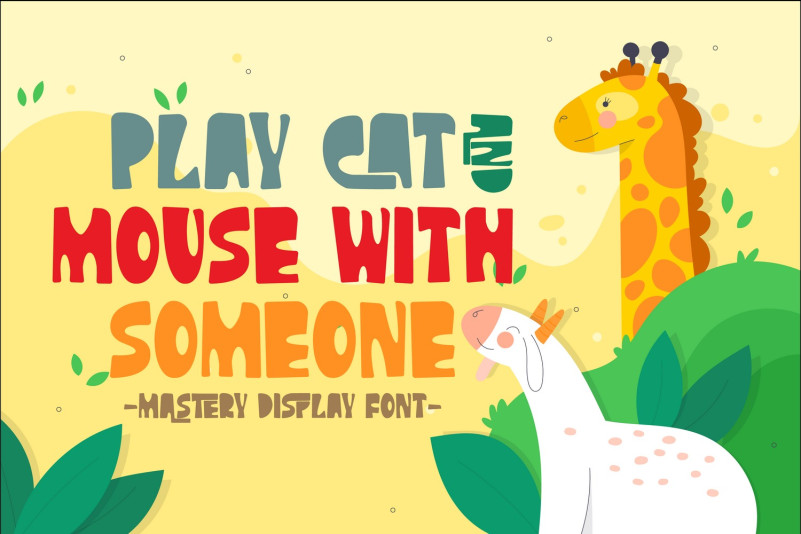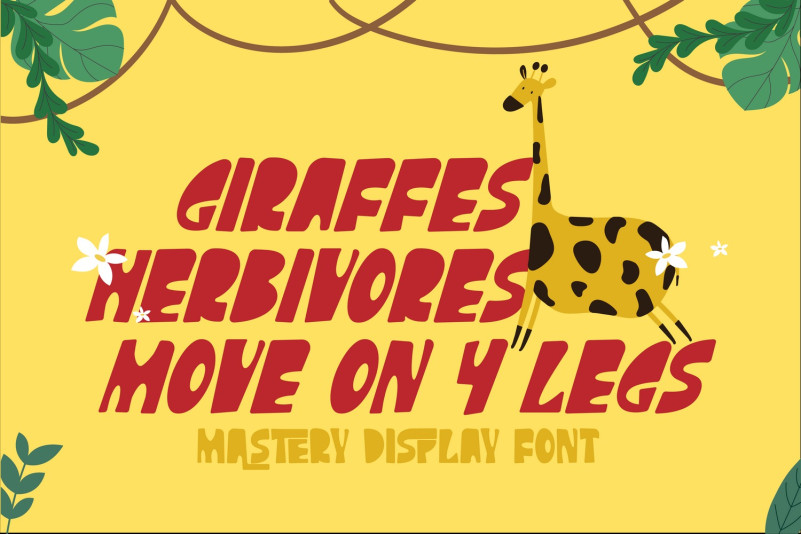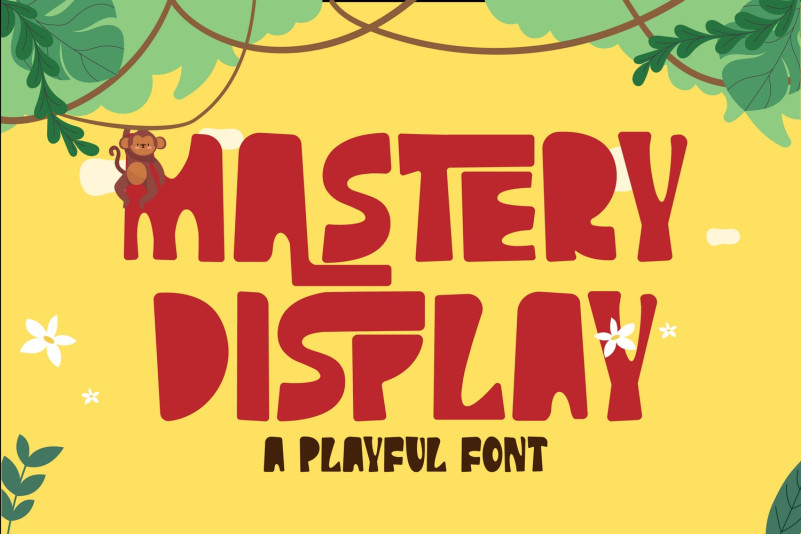
Mastery Display Font
MASTERY DISPLAY Font is a playful font, it’s a bold, quirky display font with a fun and trendy cute characters. This font perfectly made to be applied especially in logo, and the other various formal forms such as invitations, labels, logos, magazines, books, greeting / wedding cards, packaging, fashion, make up, stationery, novels, labels or any type of advertising purpose.
To make it look more unique, here we prepared some ligatures:
AA AB AC AD AE AG AH AK AL AM AN AO AR AS AV AU AZ CA CB CD CH CK CM CN CT EE EH EP HB HH HS KA KU SA SB SS SP TA TE TV TU TY..